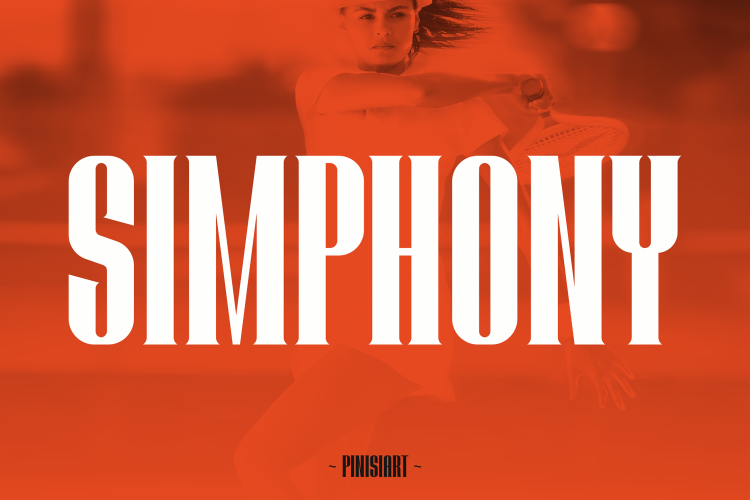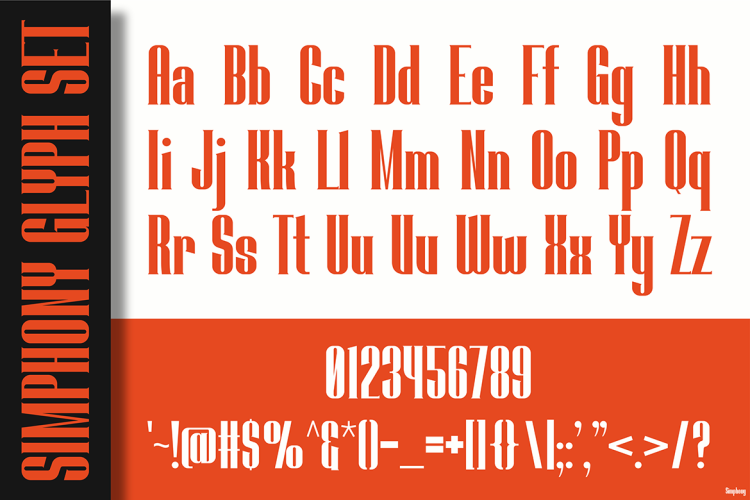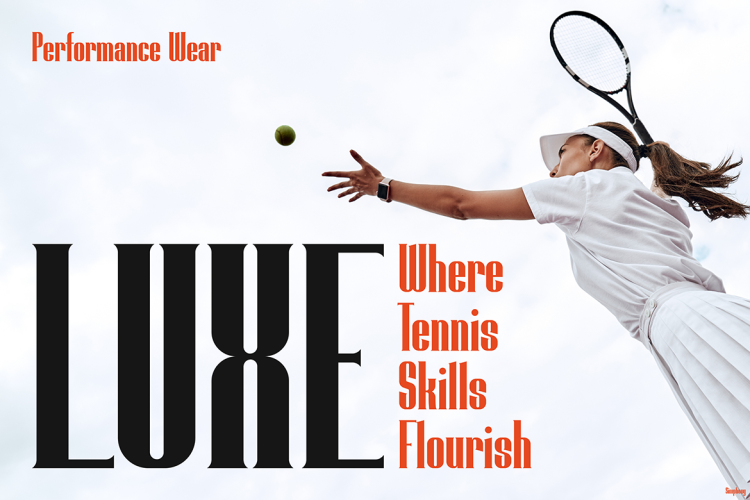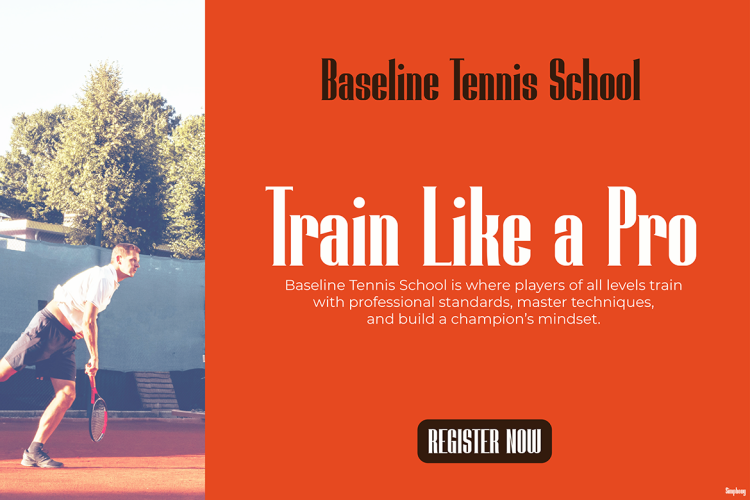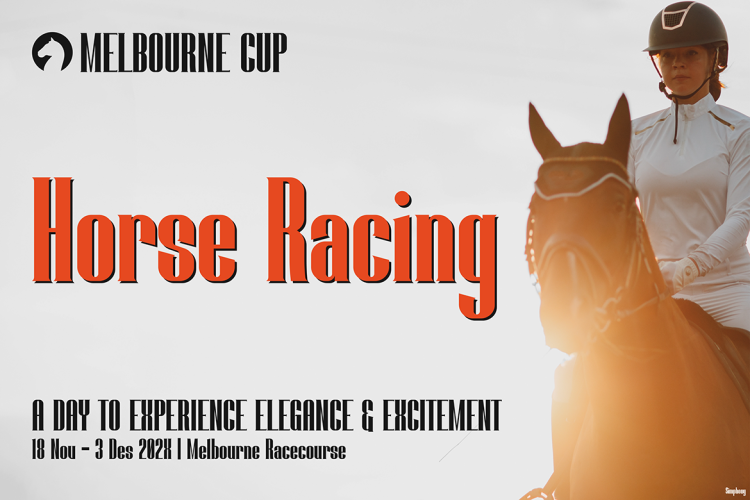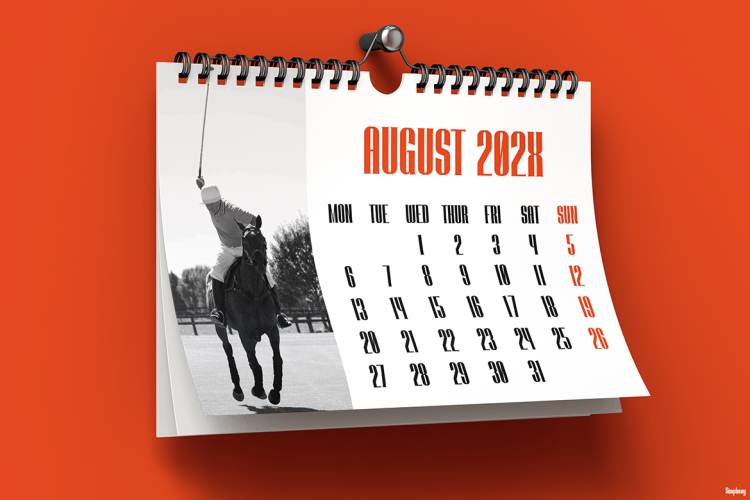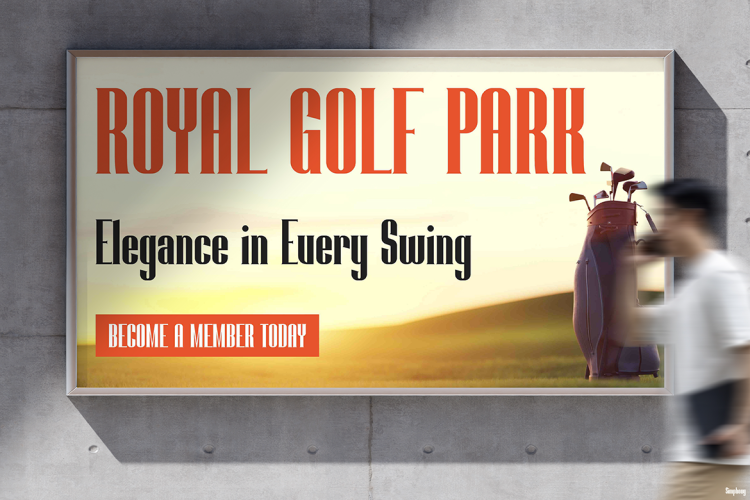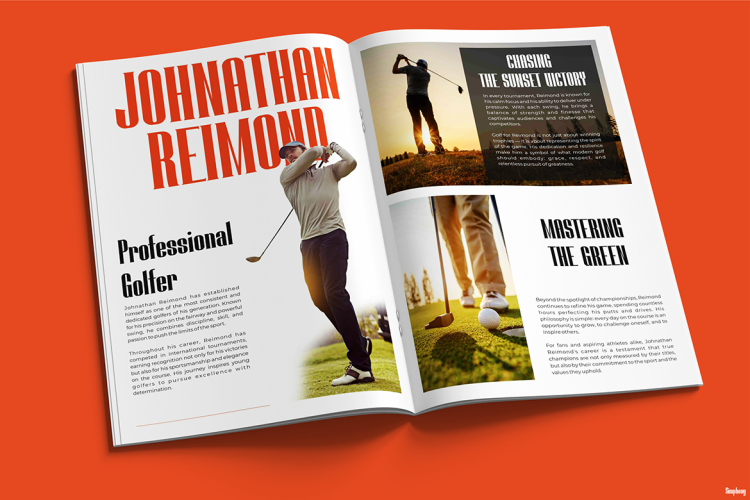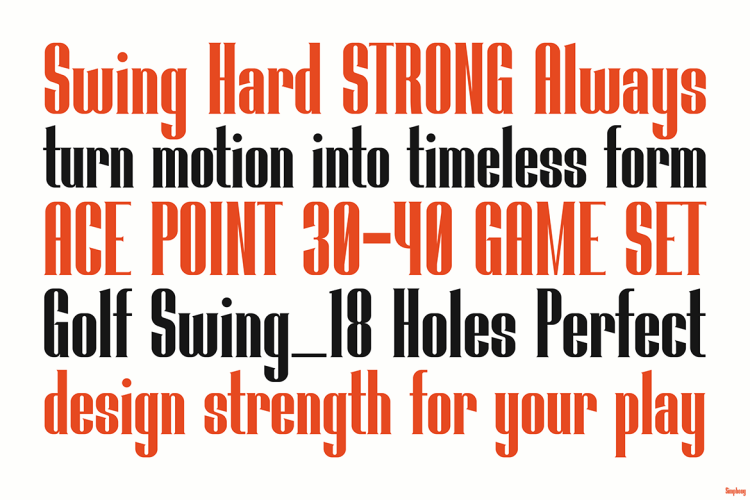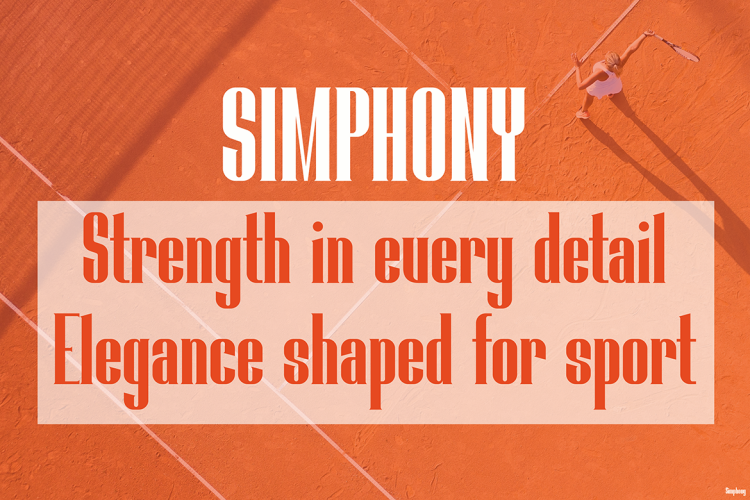
Instagram Font Simphony โ Modern Elegance with Bold Expression
Instagram Font Simphony is not just a typefaceโitโs a strong visual statement. With bold strokes and geometric balance, this font instantly grabs attention. Moreover, its clean readability makes it versatile for digital and print designs. Each letter is shaped with precision, blending elegance and strength in every detail. Therefore, Simphony works perfectly for posters, branding, editorials, and social media projects. As a result, your designs gain energy, confidence, and timeless aesthetics while staying modern and stylish.
Another reason Instagram Font Simphony stands out is its balance between power and elegance. The design feels bold yet refined, which makes it flexible for both creative and professional needs. In addition, its structure allows easy pairing with minimalist layouts or busy backgrounds, ensuring adaptability for many visual contexts.
Who Can Benefit from Instagram Font Simphony?
Designers and Creatives โ Ideal for those wanting striking headlines and eye-catching layouts for campaigns or social media graphics. In addition, it provides consistency across digital and print platforms.
Sports & Fitness Brands โ The dynamic style works perfectly for tennis, golf, horse racing, and athletic promotions. Furthermore, its bold rhythm reflects motion, precision, and strength.
Luxury & Lifestyle Projects โ Its elegance complements magazines, high-end packaging, and fashion branding with prestige and clarity. Consequently, your brand identity feels premium and polished.
Entrepreneurs & Content Creators โ Simphony ensures your posts and brand look professional, modern, and highly noticeable. In fact, it helps content stand out in crowded feeds.
Finally, this font adapts well to multiple industries, making it a reliable choice for diverse creative needs.
Why Choose Simphony?
Simphony gives more than styleโit delivers impact. Words transform into bold, elegant visuals that demand attention. Moreover, the design provides strength without losing sophistication, making it perfect for standout projects. In addition, the font remains versatile, ensuring it fits both professional branding and personal design work. Finally, with Instagram Font Simphony, your message will look refined, modern, and highly professional. Choosing this font means choosing distinction, creativity, and visual strength.